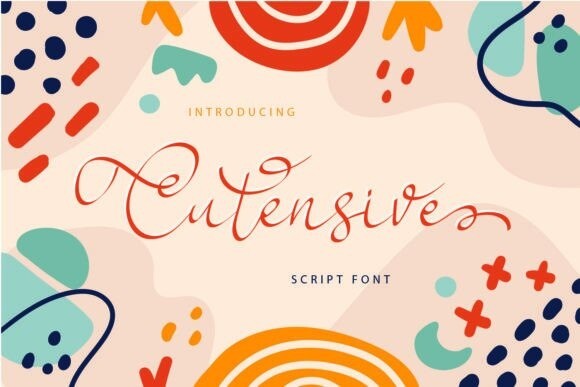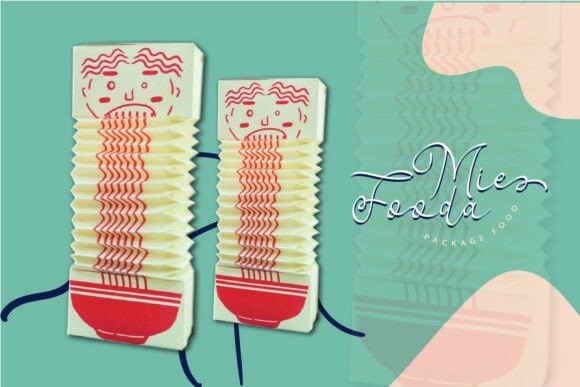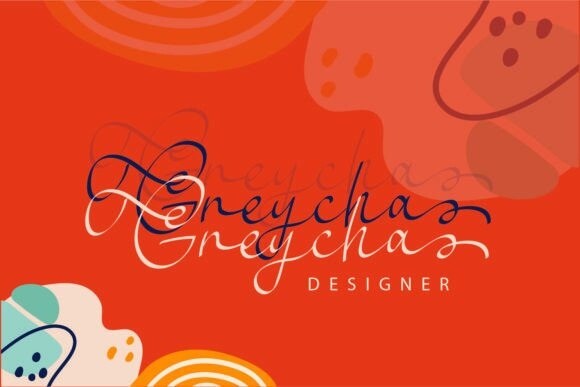
Cutensive Font
Cutensive is a modern and cool handwritten script font. Fall in love with its incredibly distinct and timeless style and use it to create spectacular designs!